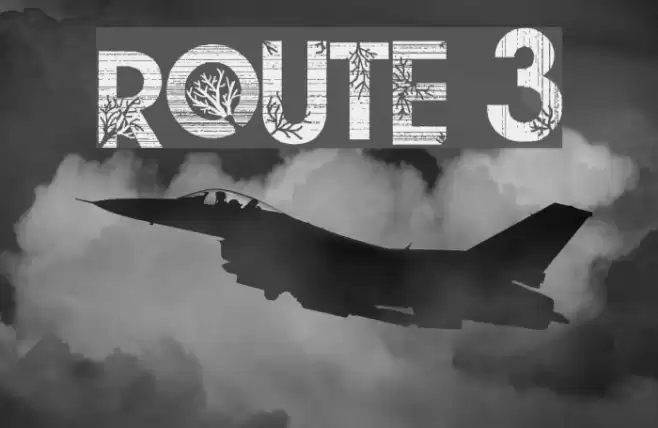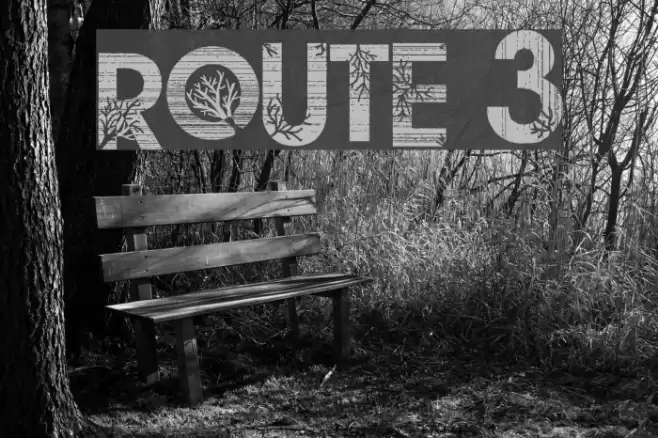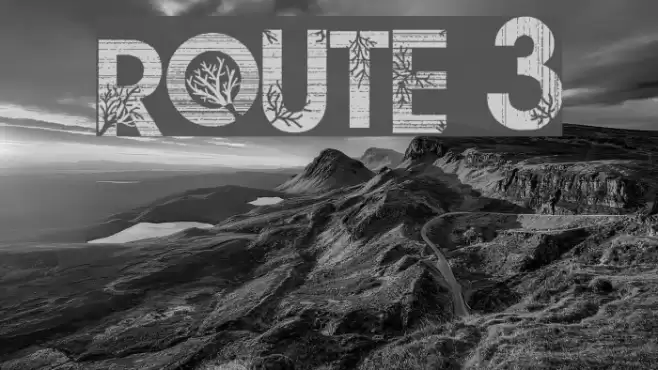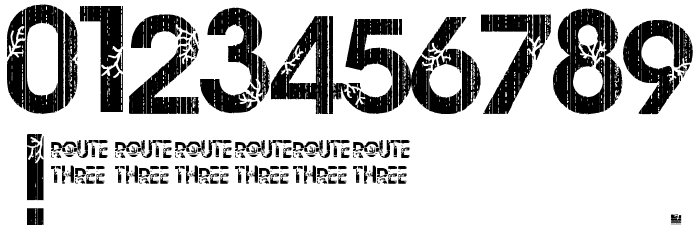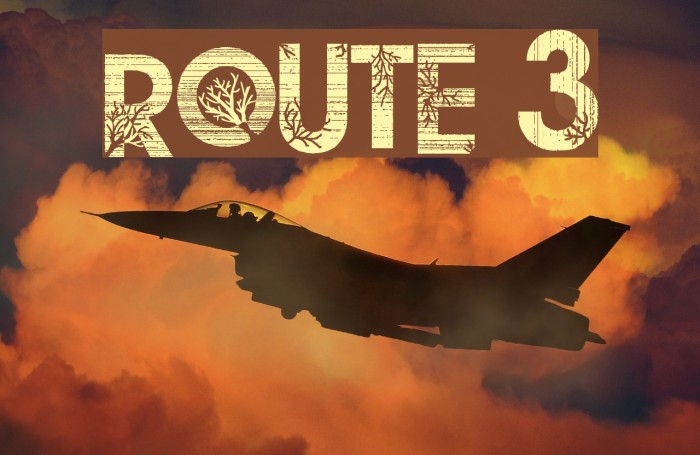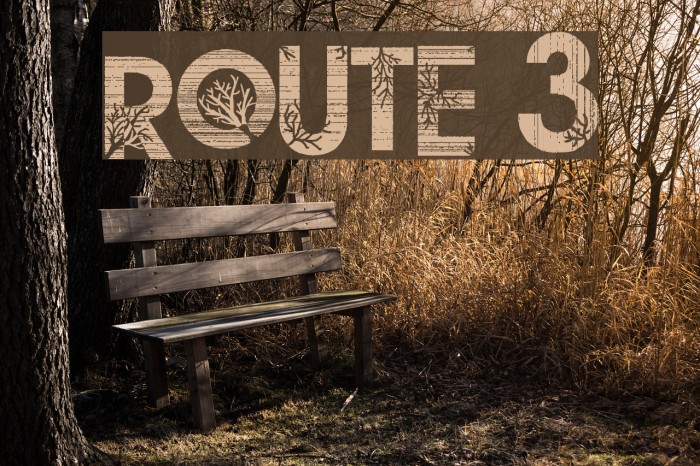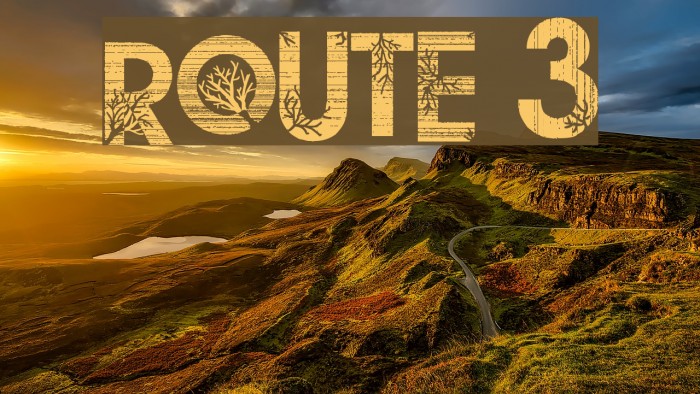
route 3 Font
route 3 Description
This font features a bold, decorative style with intricate patterns and textures embedded within each character. The uppercase and lowercase letters, as well as numbers, are designed with a distressed, grunge-like appearance, incorporating elements that resemble natural textures or abstract designs. The font's unique style makes it stand out, offering a visually striking appearance that is both artistic and edgy. The characters are well-defined, with a consistent thickness that maintains readability despite the complex internal patterns. This font is ideal for projects that require a distinctive and eye-catching typeface.
A bold, decorative font with intricate, textured patterns within each character from Decorative fonts.